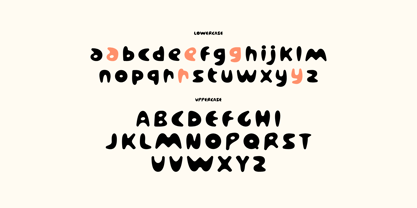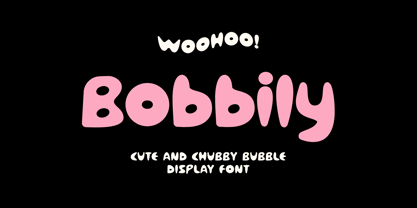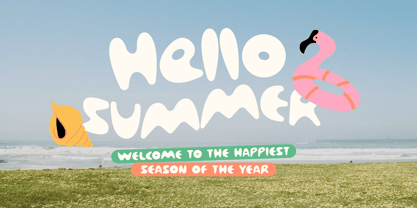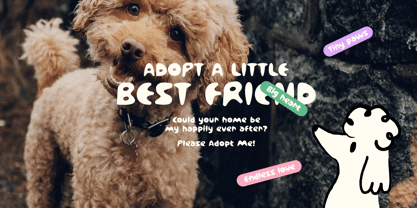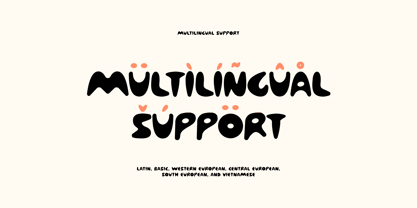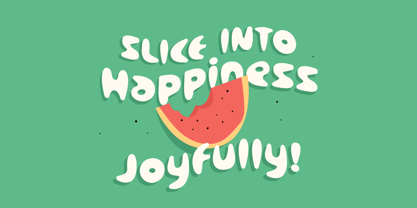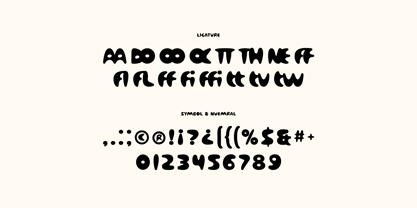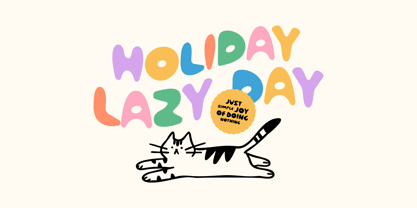
Bobbily
by Imoodev
The Bobbily Font Family was designed by Aulia Savira Putri and published by Imoodev. Bobbily contains 1 styles. More about this family
Bobbily is a chubby, hand-drawn bubble display font with thick, rounded strokes and a playful, inflated look as if each letter were made of soft dough or bubblegum.
Bobbily font letters features wide, blob-like forms with minimal, tightly pinched counters, giving the letters a squishy, toy like volume. Baselines and cap heights wobble slightly letter to letter, adding organic, hand lettered charm rather than rigid geometric precision.
This font features a retro, groovy and Y2K inspired, similar to 1970s bubble lettering, and pairs well with bright candy colors, halftone textures, and playful illustration, ideal for logos, packaging, kids' branding, summer promos, and social media titles.
Designers: Aulia Savira Putri
Foundry: Imoodev